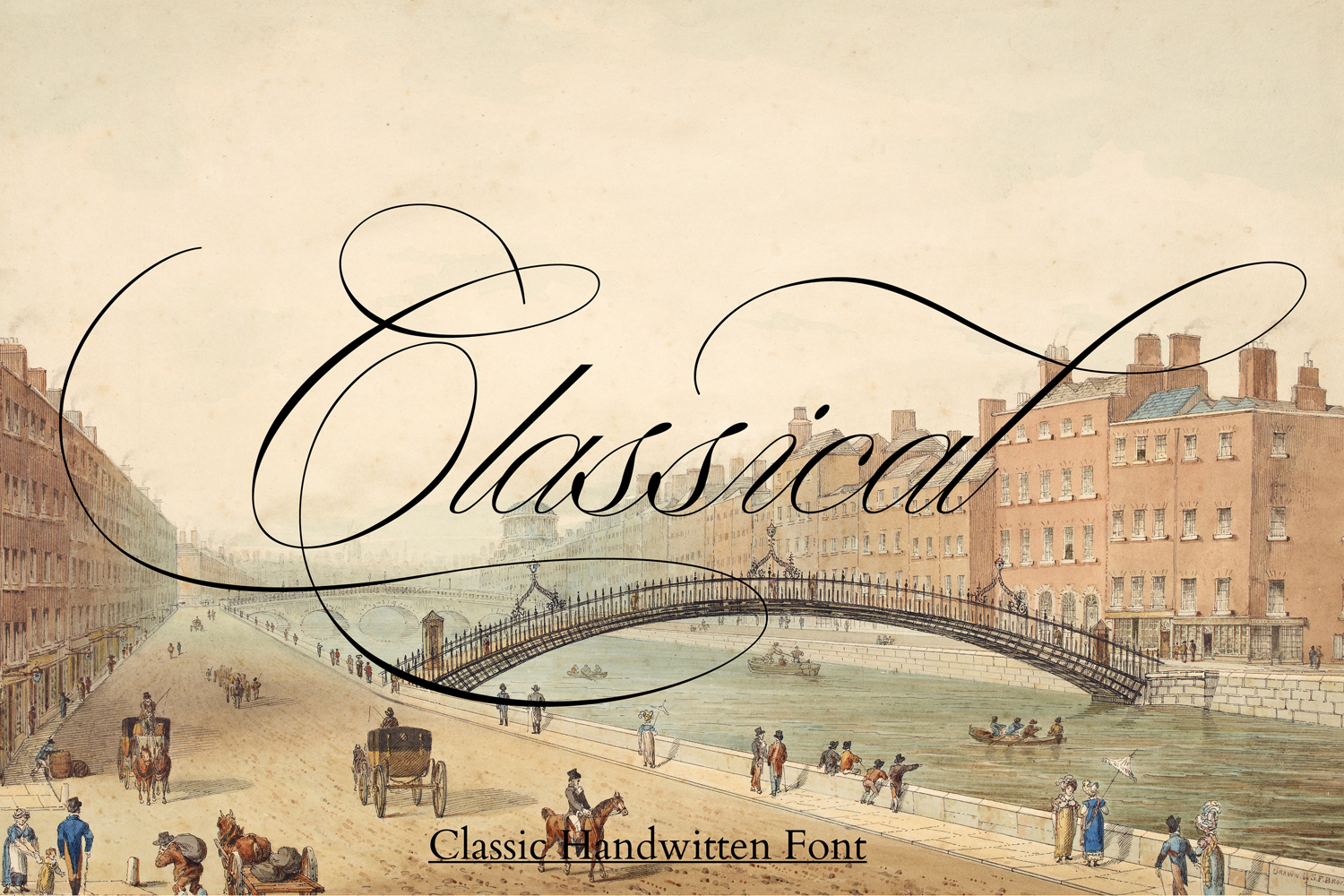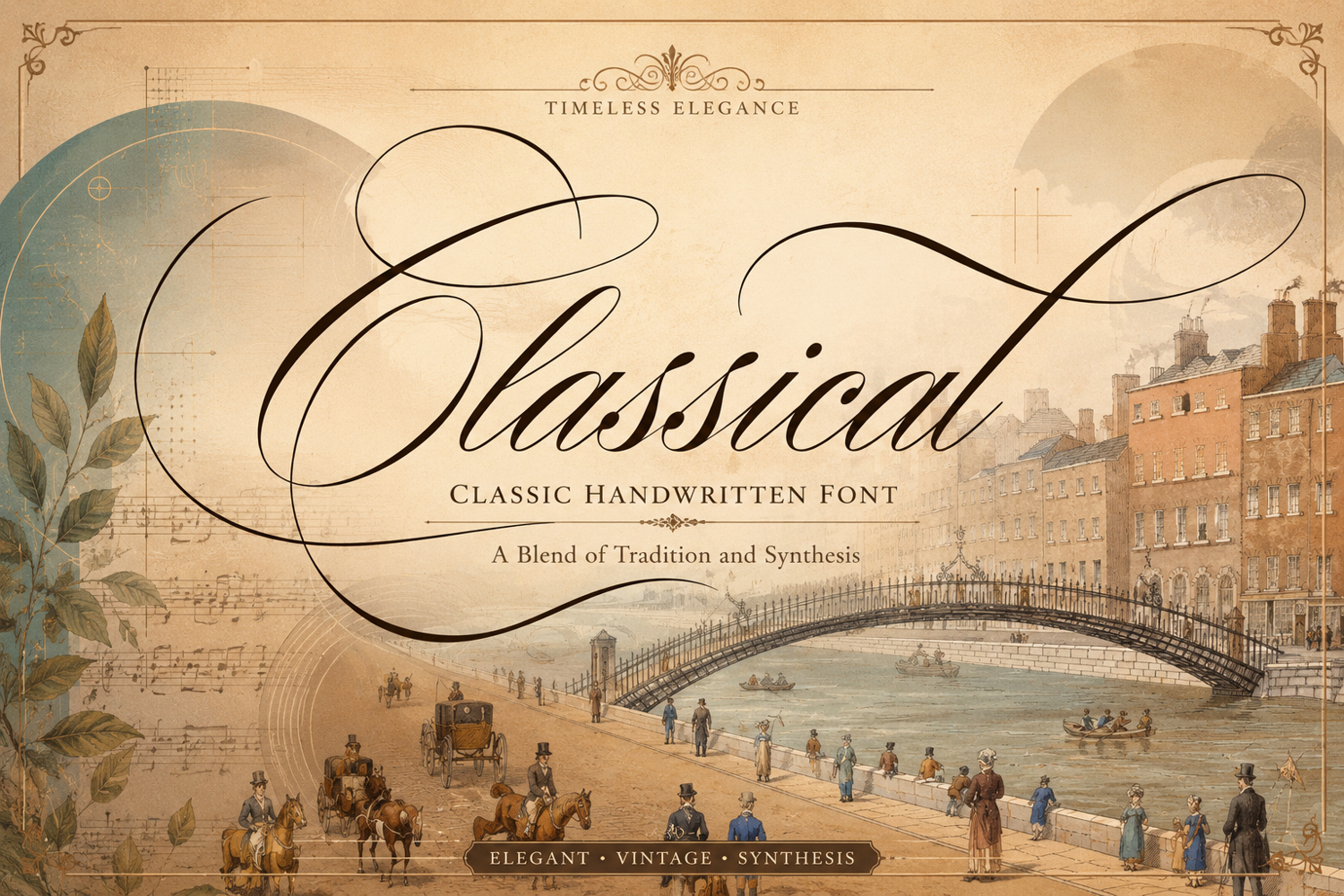
Classical
Classical is a calligraphy script font that comes with very beautiful changing characters, a kind of classic decorative copper script with a modern touch, designed with high detail to bring stylish elegance. The Classical is attractive as a typeface that is smooth, clean, feminine, sensual, glamorous, simple and very easy to read, because there are many fancy letter connections. I also offer a number of viable style alternatives for many letters. The classic style is perfect to be applied in various formal forms such as invitations, labels, restaurant menus, logos, fashion, make up, stationery, novels, magazines, books, greeting / wedding cards, packaging, labels or any type of advertising purpose.